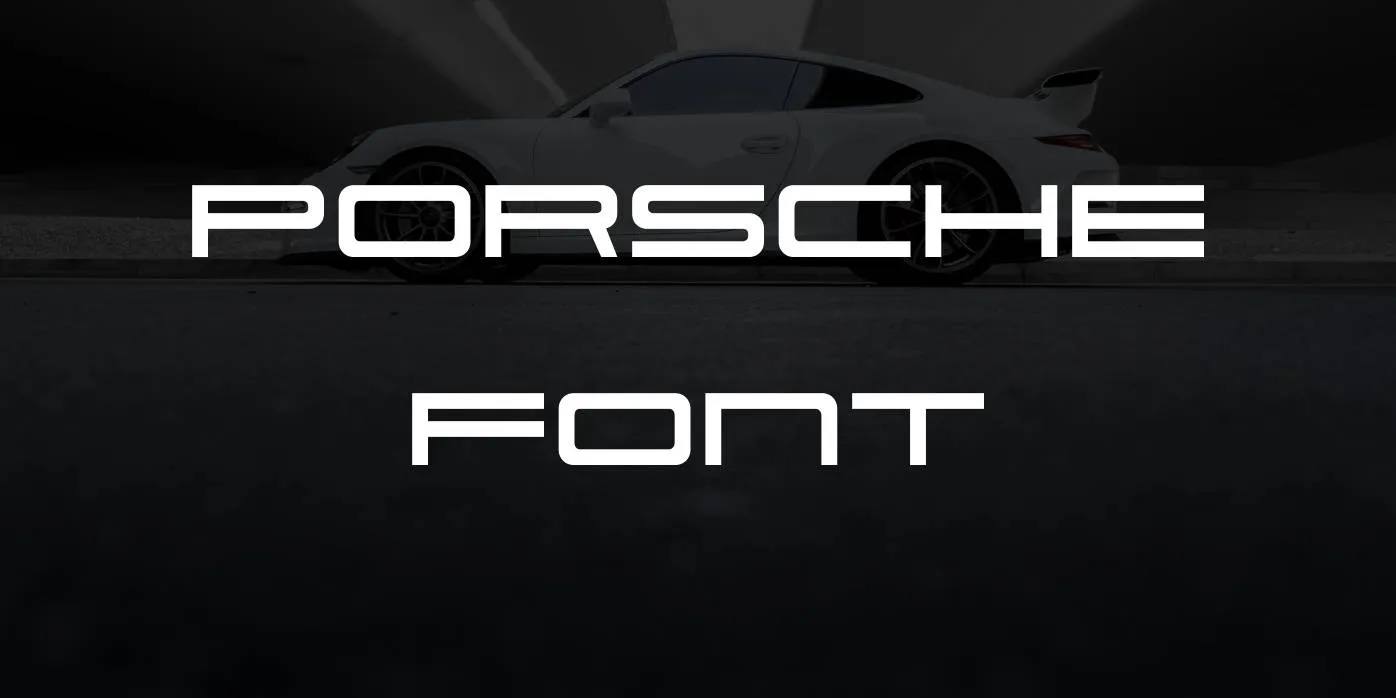
Porsche Font
Porsche Font belongs to the Sans Serif typeface. The original developer of this typeface was Kurt Weidemann. The design of the Porsche Script Font was inspired by the Porsche 911. This amazing typeface was used for the logo of the most famous company.
Volkswagen AG is the founder of this automobile Company. This amazing typeface is best for various other programs like Adobe Photoshop, and Adobe Illustrator. This font consists of two styles: regular and italic. The regular style is best used for body text, while the italic style can be used for quotes.